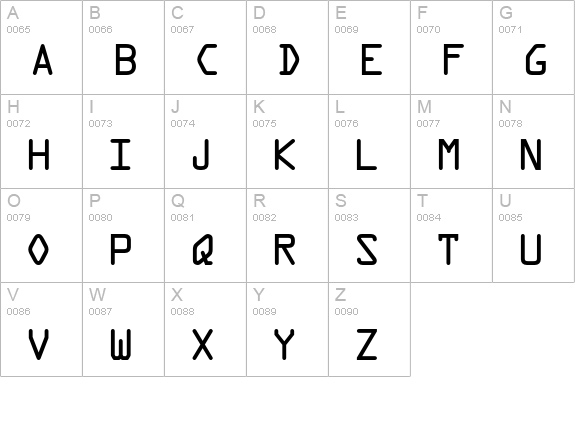
Introducing OPTIOpus font, a versatile typeface that seamlessly blends modern sophistication with a touch of elegance. Crafted with clean lines and a sleek design, OPTIOpus exudes a sense of contemporary style while maintaining a timeless appeal. Perfect for a wide range of creative projects, from branding to editorial design, this font is sure to make a lasting impression. What sets OPTIOpus apart is its unique combination of boldness and grace, making it a standout choice for those seeking a font that is both impactful and refined. With its wide range of weights and styles, OPTIOpus offers endless possibilities for customization and creativity. And the best part? OPTIOpus is completely free to download at FontsMarket.com. So go ahead and elevate your designs with this exceptional font that is as functional as it is beautiful. Unlock your creativity and make a statement with OPTIOpus font today.